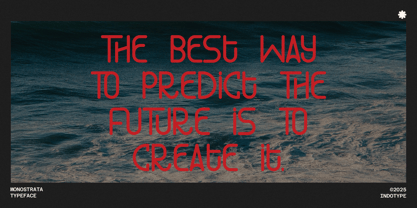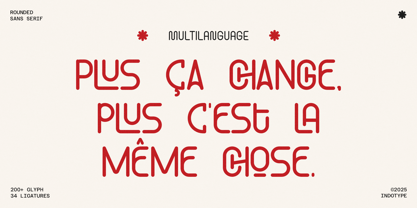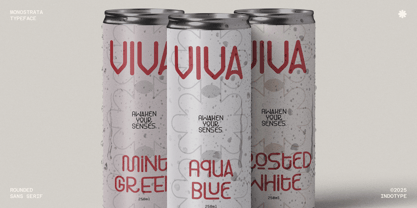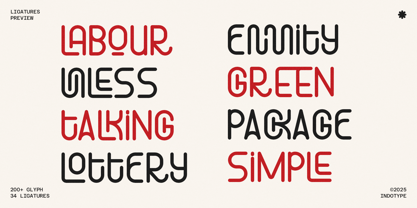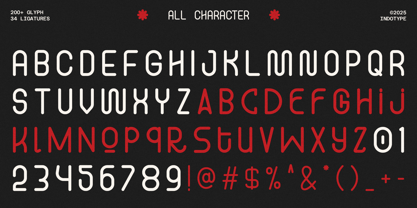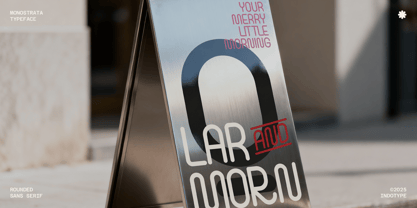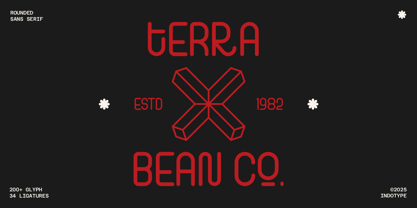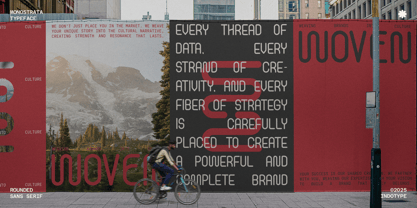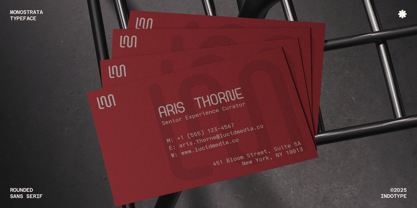
IT Monostrata
by Indotype
The IT Monostrata Font Family was designed by Frederik Aristaputra and published by Indotype. IT Monostrata contains 2 styles and family package options. More about this family
Monostrata is a modern rounded sans serif typeface that seamlessly combines geometric precision with a smooth monoline aesthetic. Designed with minimalist clarity and friendly curves, it offers a clean, futuristic feel while remaining warm and approachable. This typeface boasts over 200 glyphs and 34 creative ligatures, providing exceptional flexibility for custom typography and expressive compositions. Monostrata’s balance between uniform line weight and rounded terminals imparts a sleek yet human touch, making it ideal for logos, posters, packaging, headlines, and contemporary branding. Available in Regular and Italic styles, Monostrata ensures consistency across various design contexts while preserving its distinct monoline personality. Whether used for digital interfaces or print materials, Monostrata guarantees readability, style, and modern charm in every letterform.
Designers: Frederik Aristaputra
Foundry: Indotype